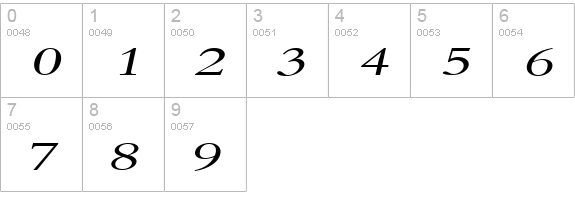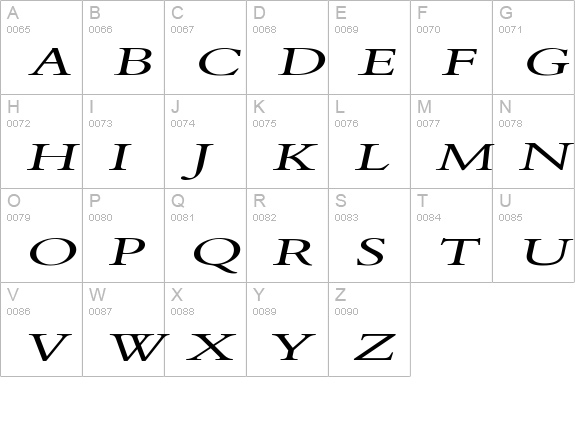
Nadine 2 Extended Italic Font Details
Nadine 2 Extended Italic is a distinctive, extended-width, italic variant in the Nadine typeface family \xE2\x80\x94 well suited to design and typography projects.
Nadine 2 Extended Italic font is a sleek and stylish typeface that exudes elegance and sophistication. Its slanted and elongated letterforms give a sense of movement and fluidity, making it perfect for adding a touch of modernity to any design project. The clean lines and subtle curves of Nadine 2 Extended Italic create a sense of dynamism and energy, making it a versatile choice for a wide range of applications. Best of all, Nadine 2 Extended Italic font is available for free download at FontsMarket.com. This means you can easily access this beautiful typeface and use it in your projects without any cost. Whether you're designing a website, creating a branding project, or crafting a print layout, Nadine 2 Extended Italic font is sure to add a touch of elegance and sophistication to your work. Download it today and elevate your designs with this stunning typeface.